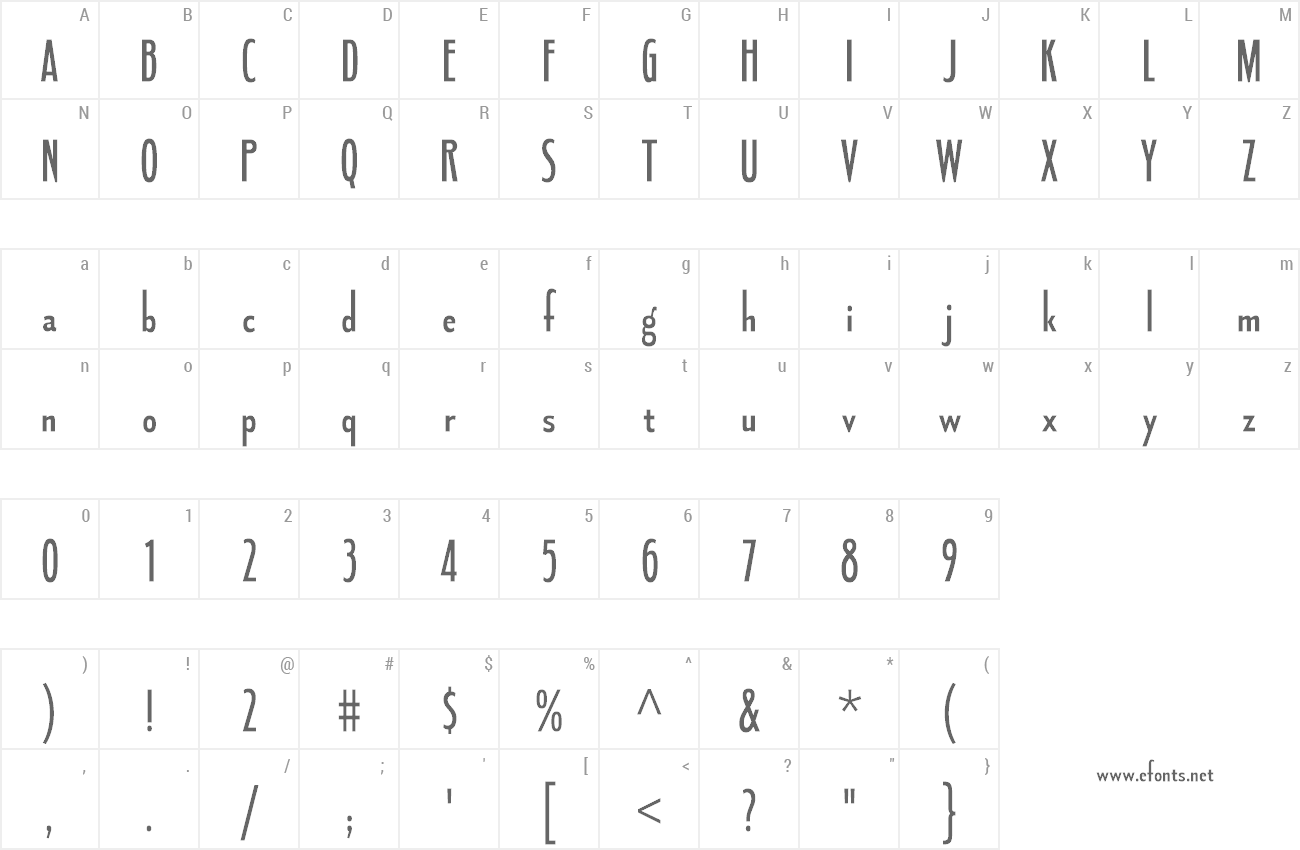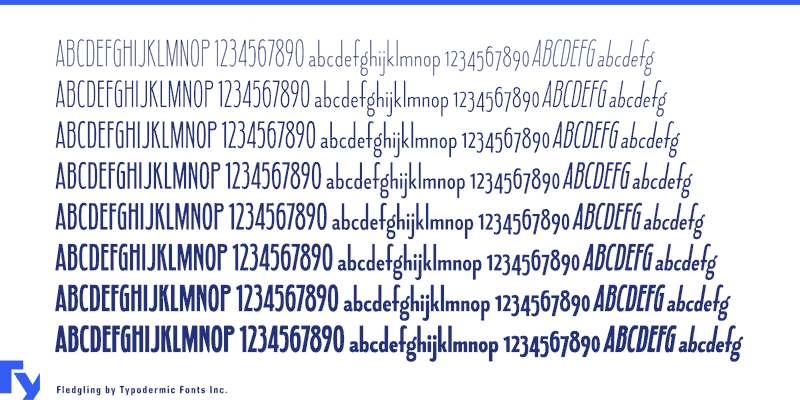
Preview and download Fledgling Font. Created by Typodermic Fonts in Basic Sans serif styles with 100% Free license.
Fledgling is a compact, high waist, low x-height sans-serif typeface in 8 weights and obliques. OpenType features include numeric ordinals, fractions and old-style numerals. Mathematical symbols, monetary symbols and combining diacritical marks are plentiful. Fledgling supports Greek, Vietnamese, Cyrillic, Pan-Nigerian and most Latin based languages. The desktop license for Fledgling Semi-Bold is free. This font includes a license that allows free commercial use: sometimes referred to as a desktop license. This allows you to install the font on a computer and use it to create posters, web graphics, game graphics, t-shirts, videos, signs, logos and more. Read the license agreement for details. If you'd like to embed this font in an app, ebook, on the web or anything that's not covered by the desktop license agreement, visit the link below. You'll find distributors who offer different types of licenses or you can contact me for help. http://typodermicfonts.com/fledgling/ This free font is part of a larger font family. Check out the rest of the family through the link above. |